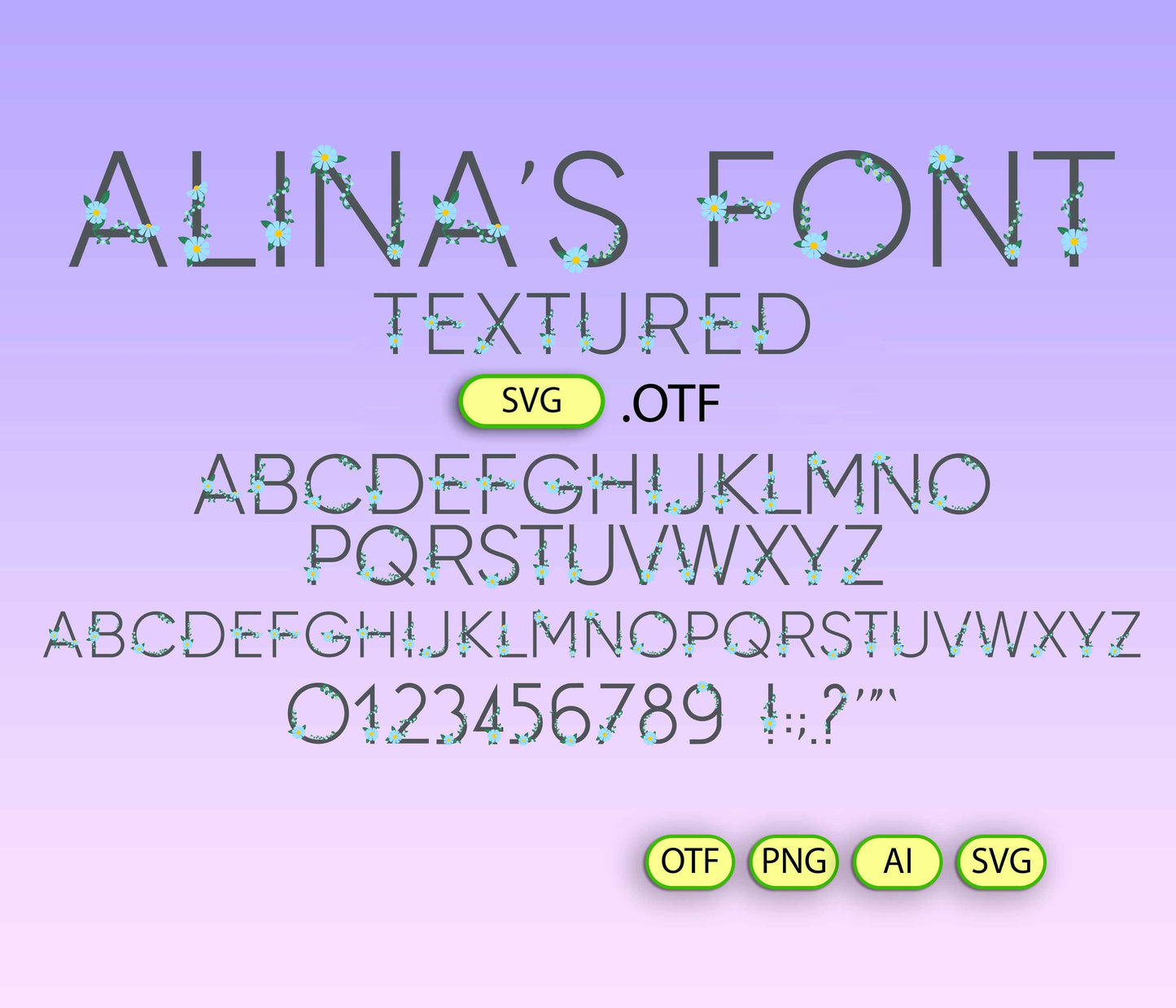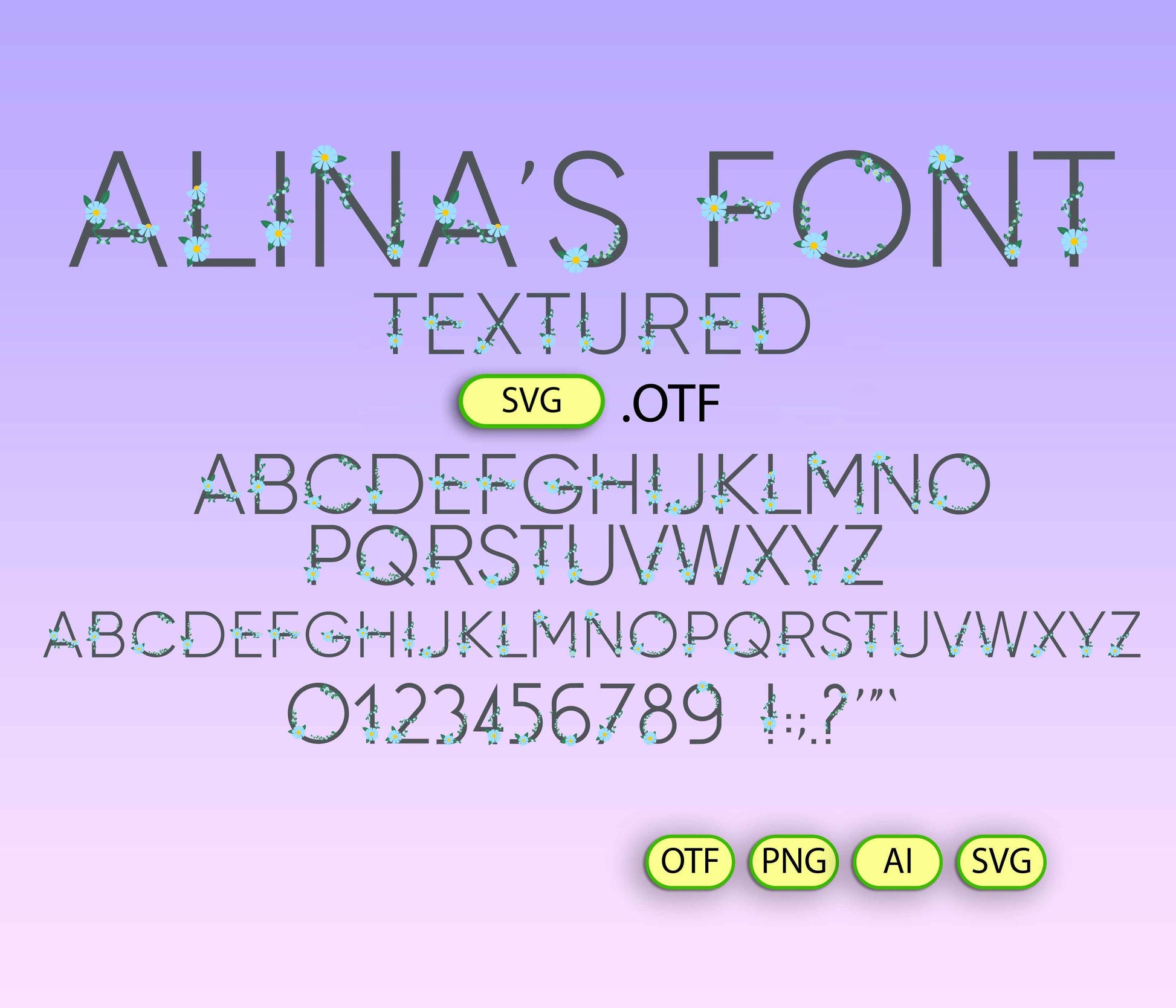
Spring Flowers Font Textured
The Blossoming Beauty of Spring Flower
Immerse yourself in the refreshing and vibrant essence of the season with our Spring Flower font, a typeface inspired by the rejuvenating spirit of spring and the natural elegance of blooming flowers. This font encapsulates the joy and beauty of springtime, with each character reflecting the delicate and graceful forms of flowers in bloom. Perfect for projects that aim to evoke the freshness, color, and vitality of spring, the Spring Flower font brings a touch of nature's charm to your creative endeavors.
What font is the Spring Flower font?
Picture a typeface that embodies the gentle, flourishing, and picturesque qualities of a spring garden. Our Spring Flower font is meticulously designed to mirror the aesthetics of springtime flora, focusing on fluid, organic letterforms that convey a sense of growth and blooming. It includes an extensive character set, featuring alphabets, numbers, and special symbols, providing a versatile toolkit for a wide range of design projects, from seasonal marketing materials to floral-themed artistic creations.
The Spring Flower font is more than just a typeface; it's an ode to the rejuvenating and beautiful season of spring.